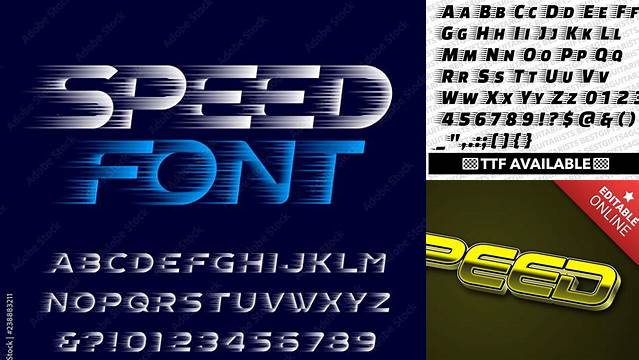
Free Fast Speed Fonts: Download & Design Guide
Hey guys, are you ready to supercharge your designs? Looking for a font that screams speed, dynamism, and a touch of edgy coolness? Well, you're in the right place! We're diving deep into the world of fast speed fonts, where you can find some amazing options for free download. These fonts are perfect for projects that demand attention, like racing themes, technology websites, sports branding, and anything that needs to convey a sense of rapid movement and innovation. We will discuss where to find these fonts, how to use them, and how they can transform your projects. Buckle up, because we're about to hit the gas!
Why Choose a Fast Speed Font?
So, why bother with a font that emphasizes speed? Good question! The right font can make or break your design, and a fast speed font is a powerful tool in your arsenal. These fonts are specifically designed to evoke feelings of motion, urgency, and excitement. They're visually dynamic, often featuring sharp angles, streamlined shapes, and a sense of forward momentum. Think of them as the visual equivalent of a sports car or a rocket ship. They grab attention and make a statement. Using these fonts is about communicating a specific message. It's not just about the words on the page; it's about the entire experience you're creating for your audience. Imagine you're designing a website for a Formula 1 team. You wouldn't use a delicate, cursive font, right? You'd want something bold, aggressive, and instantly recognizable. That's where a fast speed font comes in. It helps you create a cohesive brand identity that resonates with your target audience. The power of a fast speed font lies in its ability to convey a sense of action and energy. They are incredibly versatile, which means you can create everything from logos and headings to posters and website banners. They also help to reinforce the message and style of your design. These fonts are designed to catch the eye and draw the viewer in, and for those projects, the right fast speed font can be an absolute game-changer. They can be used for a wide range of applications, from creating eye-catching headlines to designing entire websites. They are also perfect for branding, marketing materials, and social media posts, helping your brand stand out from the crowd. These fonts convey a sense of excitement, urgency, and innovation, making them the perfect choice for projects that need to make a bold statement.
Furthermore, a fast speed font isn't just about aesthetics; it's also about functionality. These fonts are often designed with readability in mind, ensuring that your message is clear and easy to understand, even at high speeds (pun intended!). They are made to be bold and eye-catching. You want to make sure that the font complements your overall design, and these fonts are designed to fit the bill. The choice of font speaks volumes. It's about understanding your audience and ensuring that your design elements work together to deliver the right message. Also, these fonts can be a fantastic option for anyone who is on a budget. You will be glad to know that many of these fonts are available for free download, making them an accessible choice for both amateur designers and seasoned professionals. They are not only visually appealing but also practical and versatile, making them a valuable asset for any creative project. If you're looking to add a jolt of energy to your designs, you can use these fonts for free. You'll get the chance to create a dynamic and visually captivating design.
Creative Market: Although primarily a marketplace, Creative Market also offers a selection of free fonts each week. Keep an eye out for these freebies; you might get lucky and snag a fast speed font! It's a good source to start your search for fonts. It provides a wide selection. Be sure to check the weekly freebies, which can include some amazing fonts. The website is user-friendly. It is a great way to try out fonts before you purchase them. It's a good way to add variety to your designs without breaking the bank. The selection of fonts offered is very good, and you can find some really great ones. Keep in mind that the free fonts change regularly, so check back often to see what's new.
When you're browsing, look for fonts with strong geometric shapes, bold lines, and a sense of forward motion. Think about what kind of message you want to convey and choose a font that complements that message. Make sure to always check the licensing details. Some fonts are free for personal use only, while others are free for both personal and commercial use.
Tips for Using Fast Speed Fonts Effectively
Alright, you've found a fast speed font you love. Now what? Here are some tips to make the most of your chosen font:
Keep it Readable: Fast speed fonts are visually dynamic, but they can sometimes be a bit tricky to read, especially in large blocks of text. Use them for headings, titles, and short bursts of text where impact is key. Avoid using them for lengthy paragraphs or body copy. Also, make sure the font is easy to read at the size you're using it. Try it out at different sizes to make sure it's legible.
Fast Speed Font Free Download: Conclusion
So there you have it! You are ready to get the perfect fast speed font for your project. By using these fonts, you can add a jolt of energy to your designs, making them more engaging and memorable. The resources and tips above will help you find the perfect free fast speed font for your next project. Remember to consider the readability, the overall style, and the message you're trying to convey. The right font can transform your design, so have fun experimenting and unleashing your creativity! Good luck and happy designing, guys!